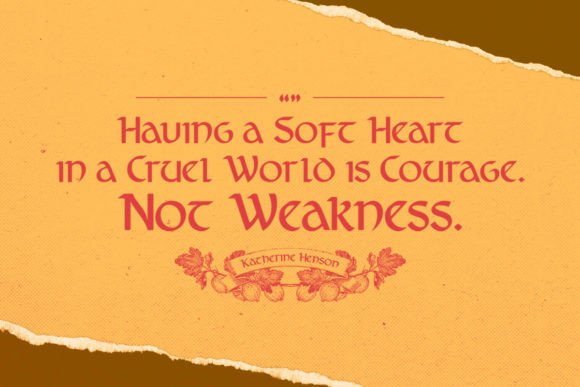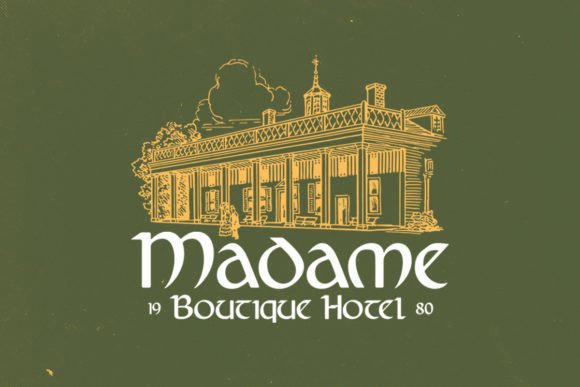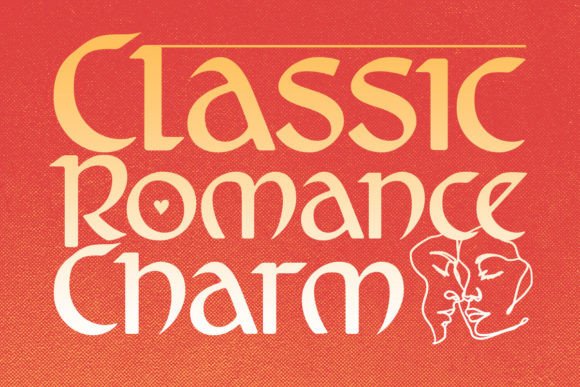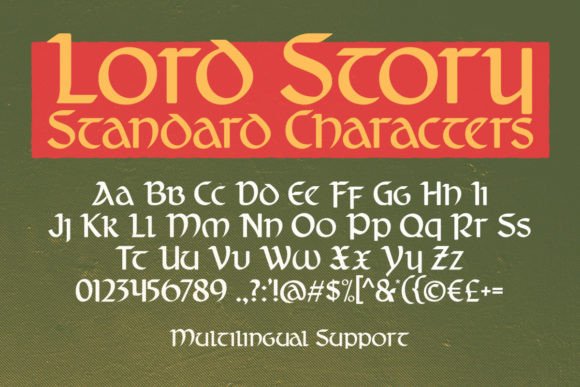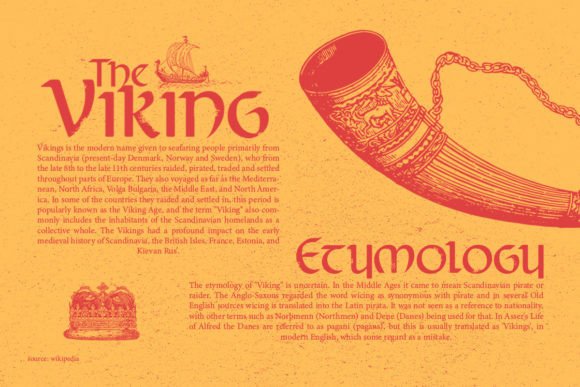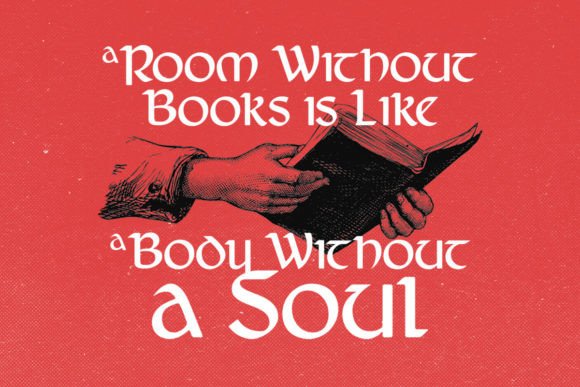
Introduction to Lord Story Font Font
Fonts play a crucial role in design, and the Lord Story Font font is a typeface that brings both character and versatility to any project. Whether you’re working on a branding project, a website, or a print design, the Lord Story Font font offers a unique style that can elevate your work.
Lord Story is a cool display font with a unique medieval theme.
With its historical and romantic charm, this font will be a great addition to your fonts library as it has the potential to elevate any creation .
Key Features of Lord Story Font Font
Why Choose Lord Story Font Font?
The Lord Story Font font is more than just a typeface – it’s a design tool that helps you communicate your message with style and clarity. Its unique character set and versatile design make it suitable for a wide range of applications, from elegant invitations to bold headlines.
With its carefully crafted letterforms and balanced proportions, the Lord Story Font font ensures readability and visual appeal across all mediums.
What makes Lord Story Font font special?
The Lord Story Font font stands out with its unique design, exceptional readability, and versatility across various design applications.